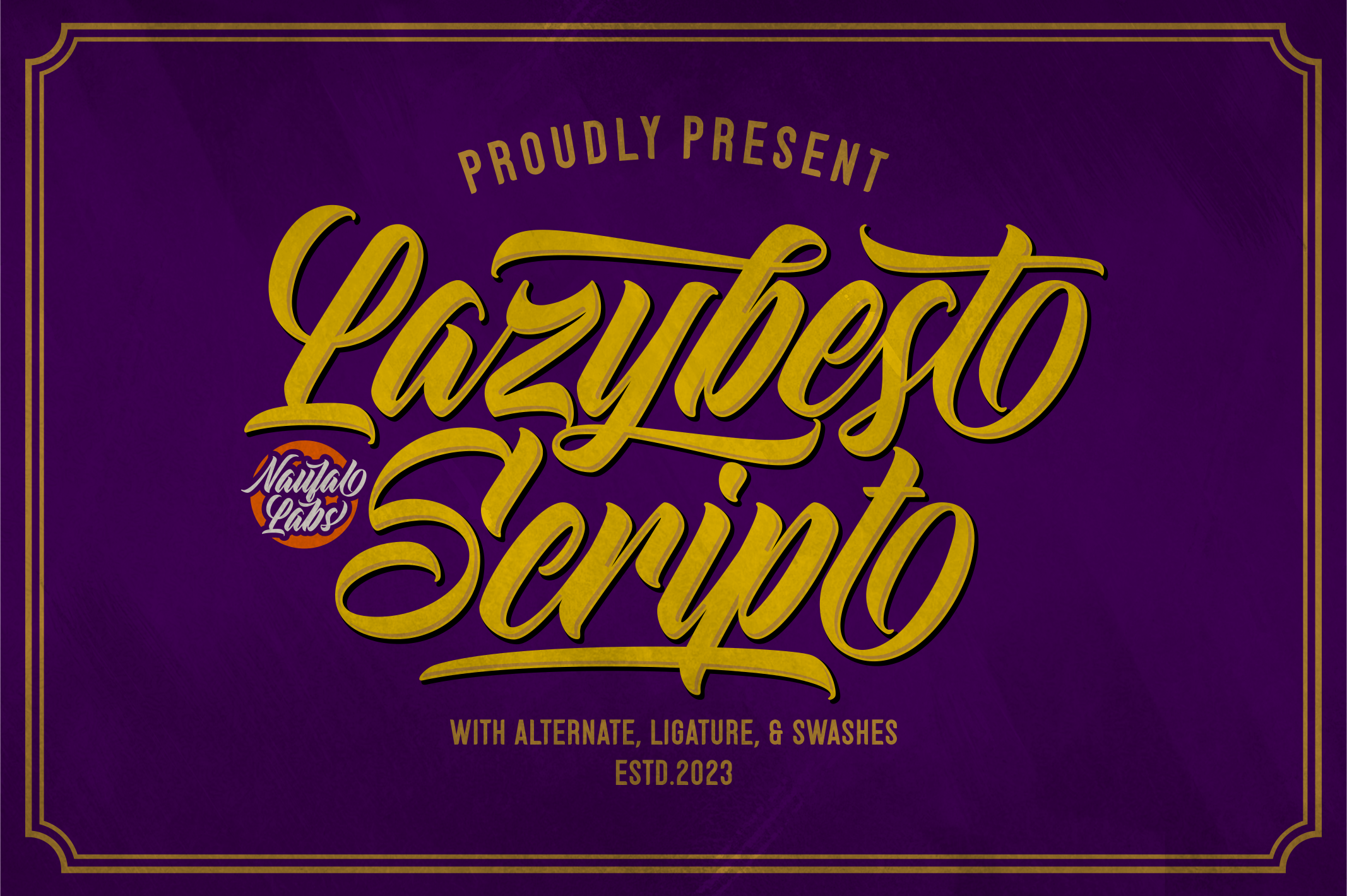
Lazybest Script Font
Lazybest Script is font reads as strong, confident, and dynamic and can add tons of nostalgic character to your designs and great movement this typeface and allow you to make lettering and logotype quickly and easily.
This typeface is suitable to use for any project such as Logotype, Letterhead, Poster, Apparel Design, Label and etc.